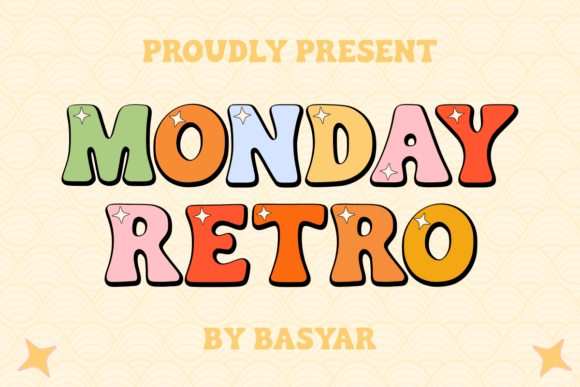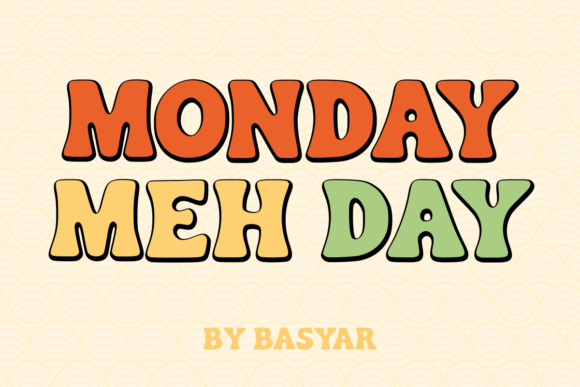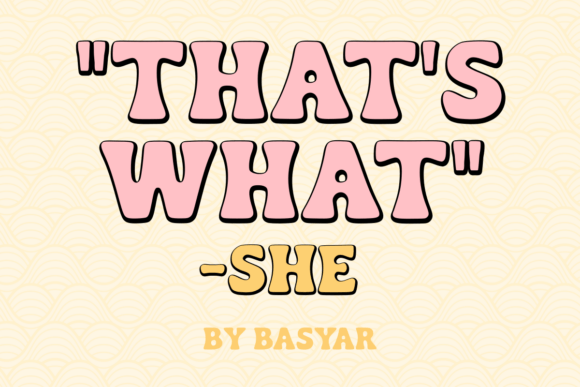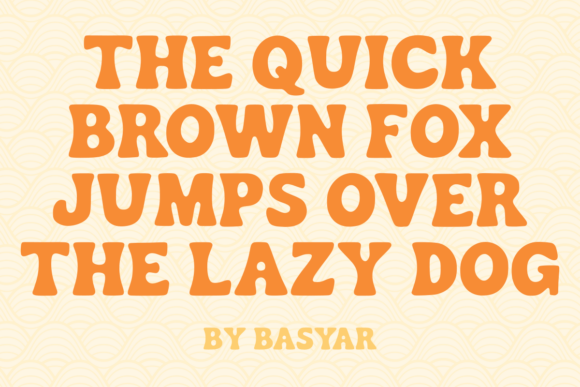
Monday Retro Font: Groovy Typography for Playful Poster Designs
About the Monday Retro Font
Welcome to the world of Monday Retro Font, a typeface that will inspire your next great project. Monday Retro is a playful, bold, and groovy font designed to add a touch of fun to your projects. With its retro groovy, retro-inspired characters, it’s perfect for eye-catching titles, kid-friendly designs, and playful branding. The uppercase letters and numbers have a retro timeless feel, making Monday Retro ideal for lighthearted and whimsical themes. Whether for logos, posters, or t-shirt designs, this font adds a cheerful, easygoing personality to any project!
Monday Retro thrives in display applications such as headlines, posters, and short-form branding elements where its bold personality shines. It’s equally effective on packaging for products targeting a younger demographic or those with a vintage aesthetic. However, its playful nature and relatively large x-height make it unsuitable for extended body text or user interface elements requiring high readability.
Consider pairing Monday Retro with a clean sans-serif like Open Sans for a balanced contrast, or a more geometric sans-serif like Futura for a modern retro feel. For a touch of elegance, a delicate serif like Lora can soften its bold character. Avoid pairing it with other highly stylized or decorative fonts, as this might create visual clutter.
The font’s core personality is undeniably playful and bold, conveying a sense of fun and retro nostalgia. It’s ideal for brands projecting a youthful, energetic, and slightly whimsical image, but would be inappropriate for contexts requiring sophistication or seriousness.
Monday Retro Font Usage Examples
Monday Retro Font Example